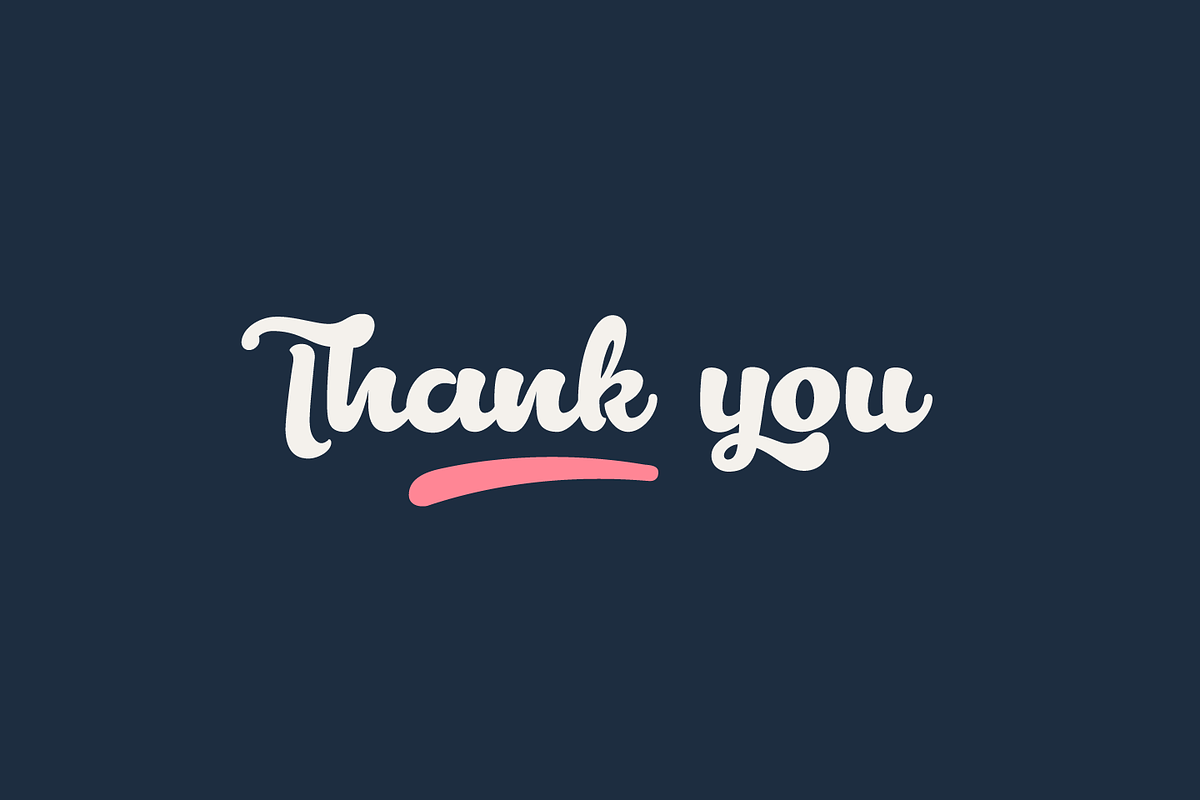
Lactosa
Say hello to Lactosa - A sweet script font that is bold and fully of energy, and curvaceous.
Lactosa comes to you with several alternate lowercase-letters for you to play with and the complete set of lowercase-letter swashes that make your word looks sweet and stand out. It has a fabulous selection of ligatures built in (consists of 60+ ligatures). It's especially created for branding and product packaging typography, also perfect for poster, business cards, headline, restaurant menus, and much more.